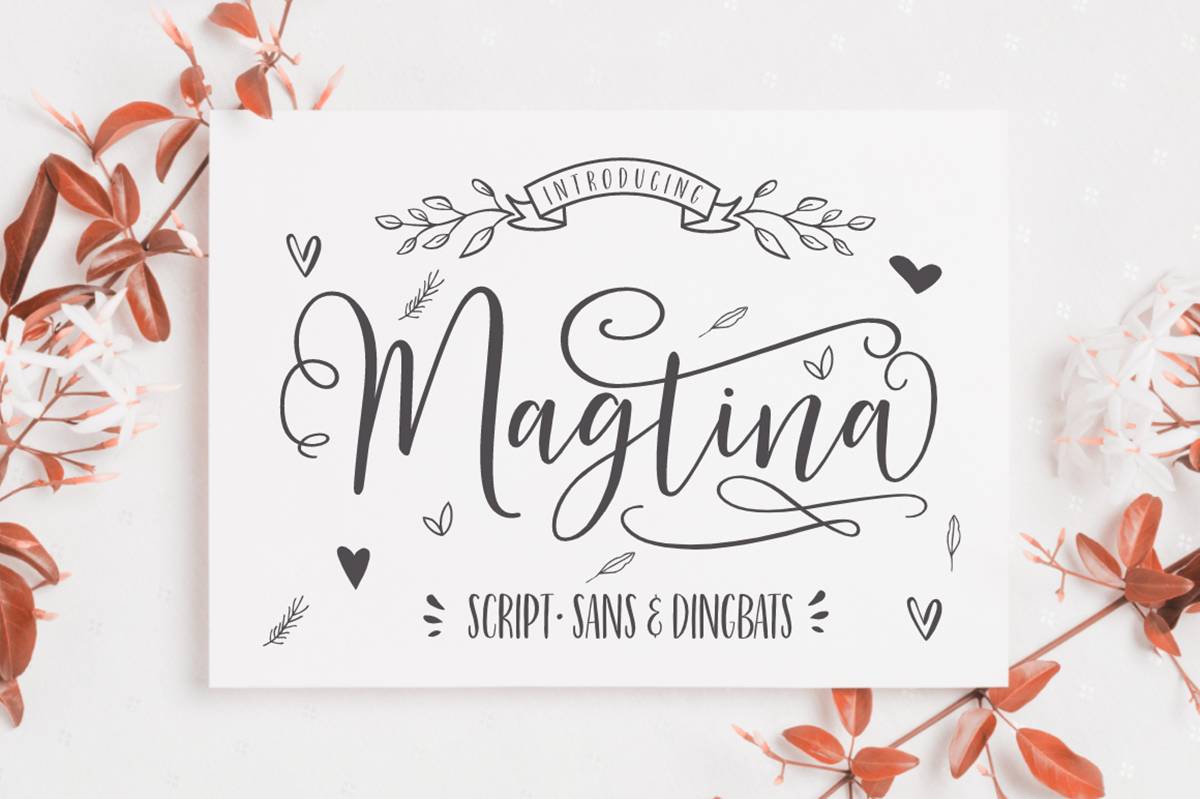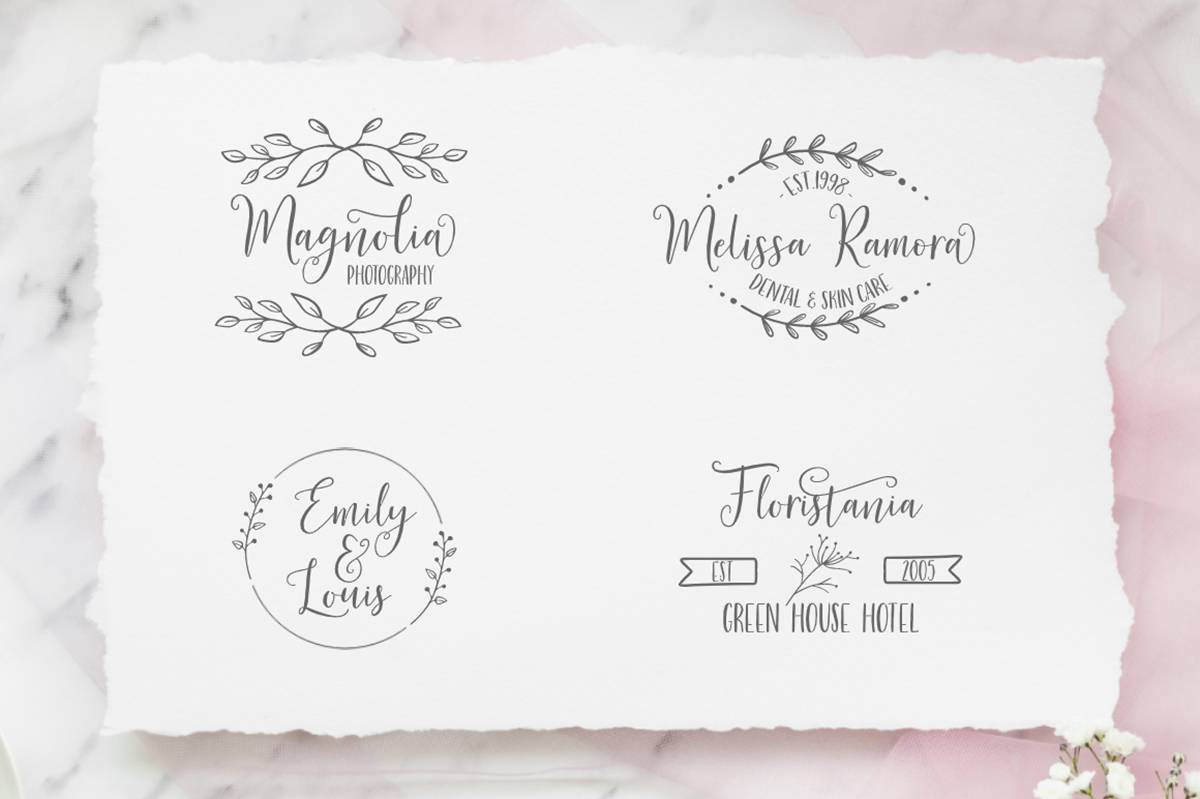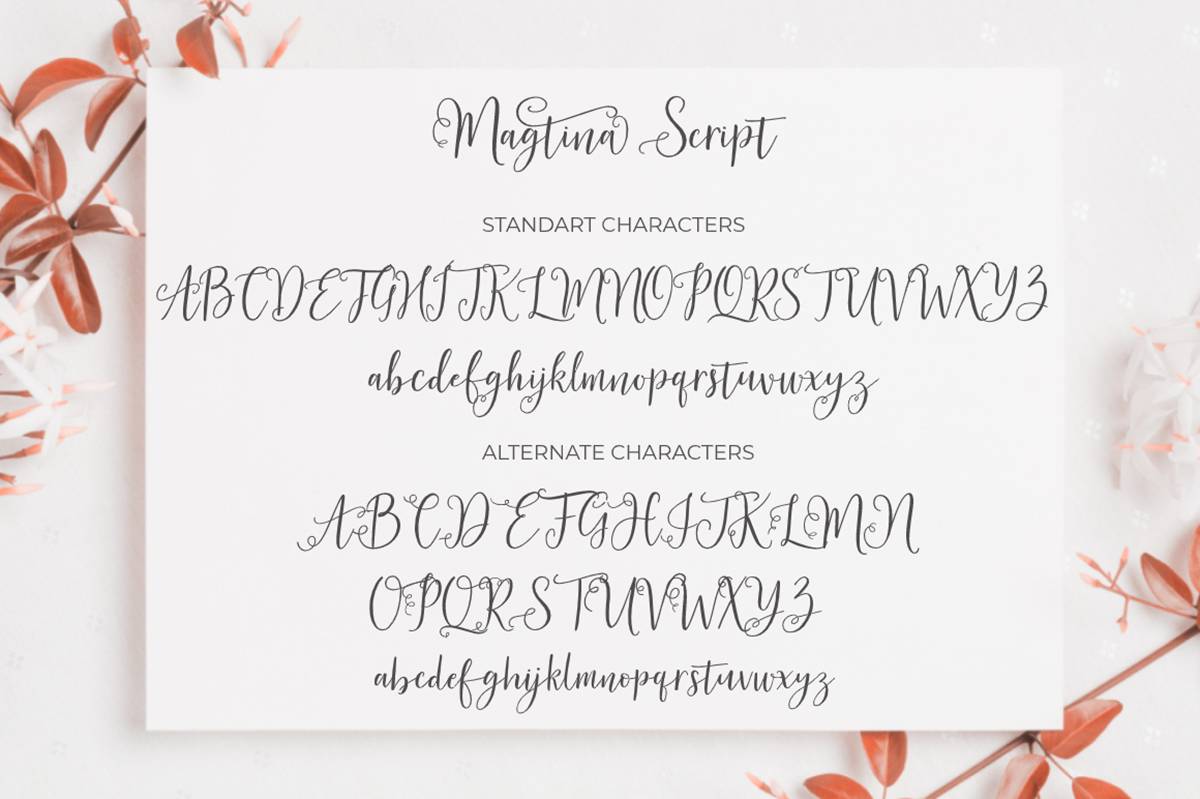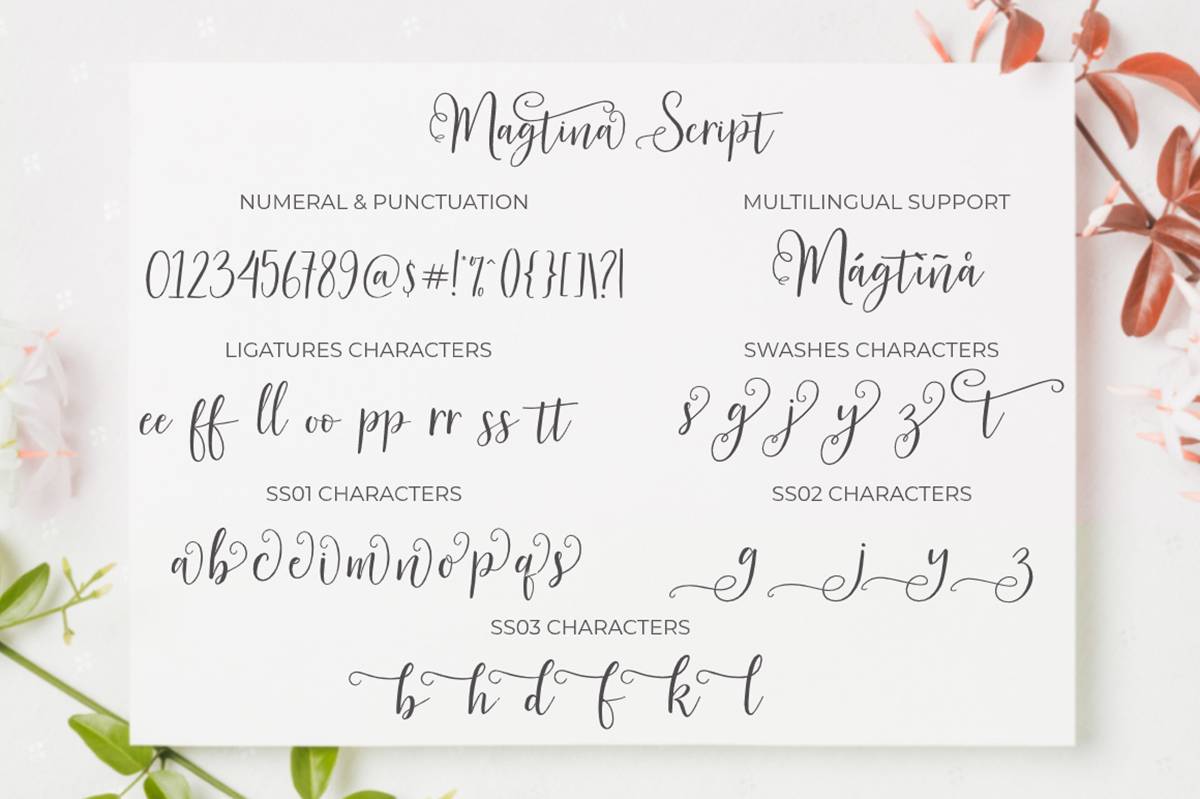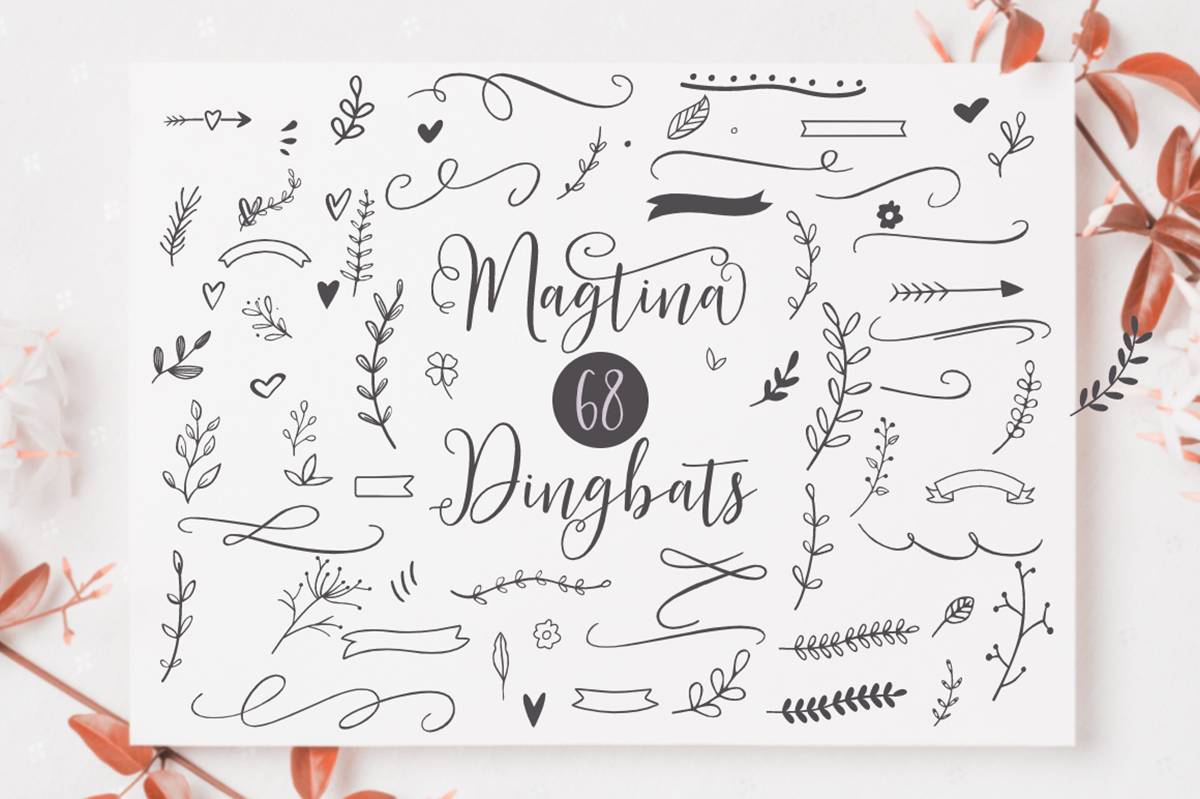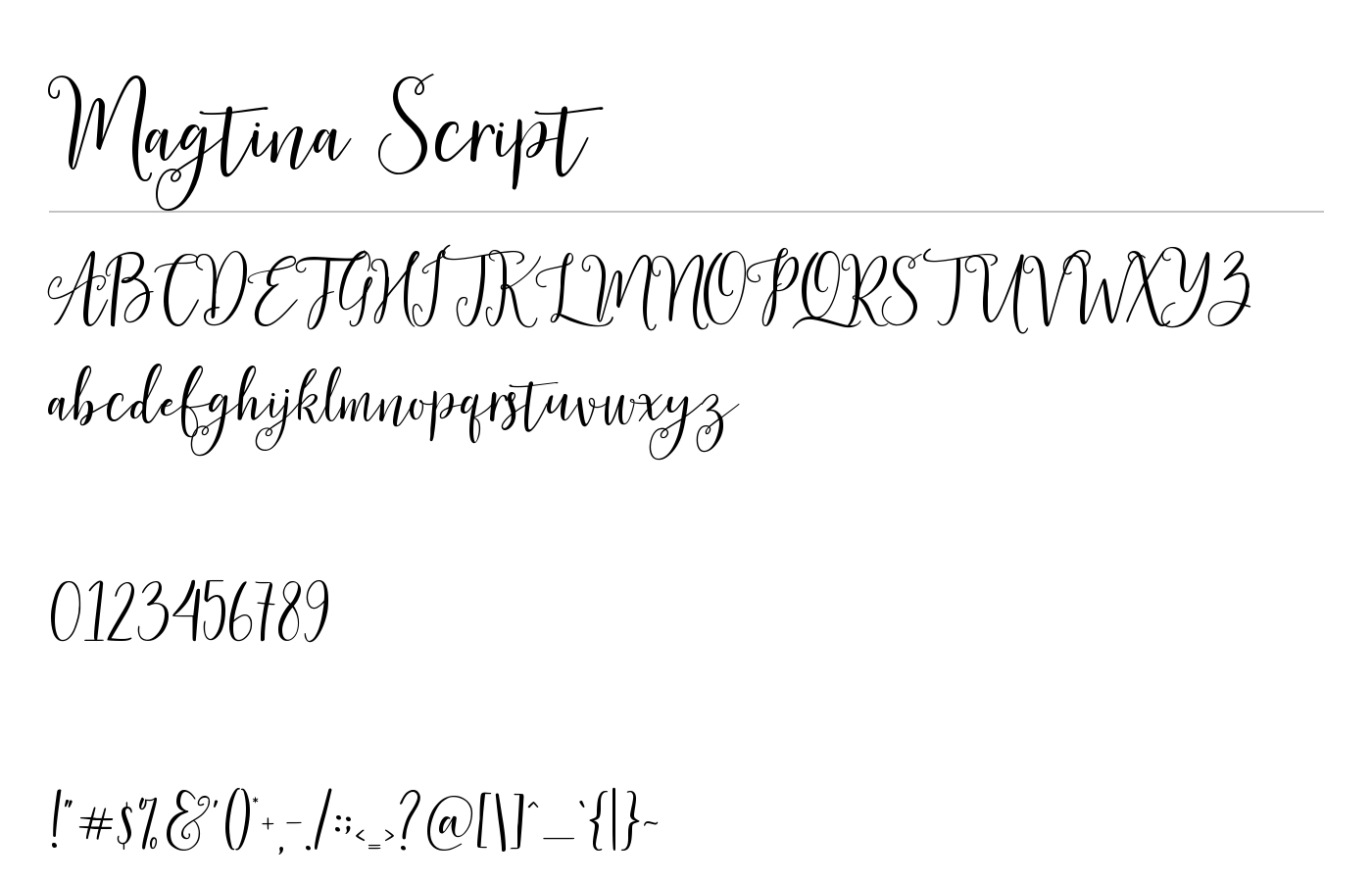
Magtina Script is a delicate, elegant handwritten font with thin, flowing strokes and graceful swashes that give it a charming, romantic feel. Its tall, narrow letterforms and decorative loops make it ideal for invitations, branding, and projects that seek a sophisticated yet approachable style. This font works beautifully in headlines and logos where a personal, artistic touch is desired.
Magtina Font
About Magtina Font
| Font family | Magtina Font |
| Designer | Jamaludin @Jimtypestudio |